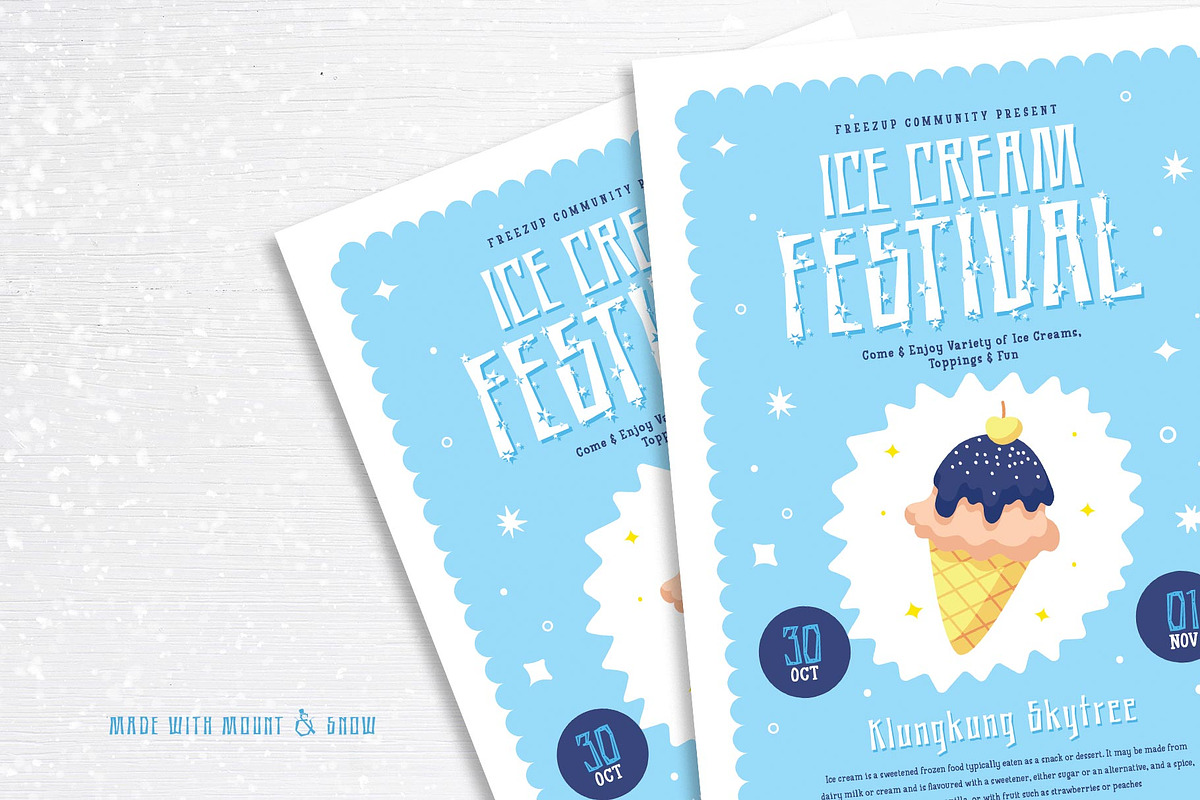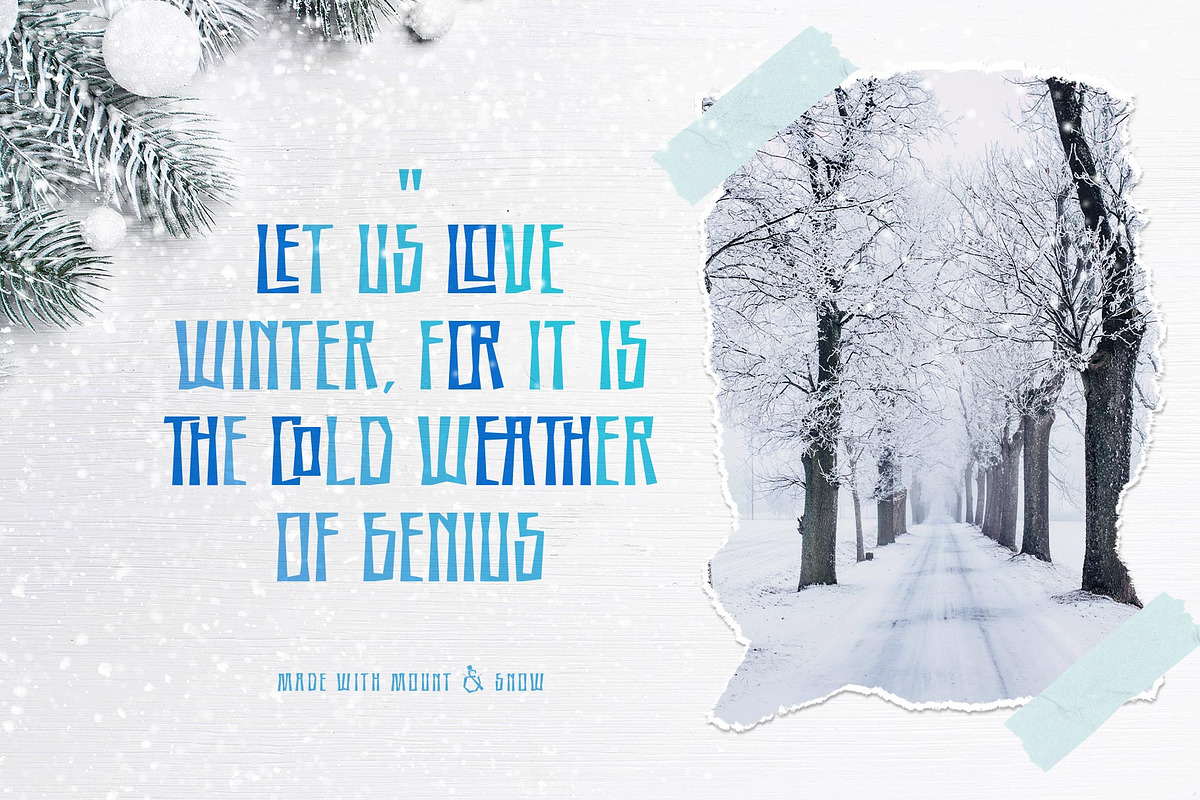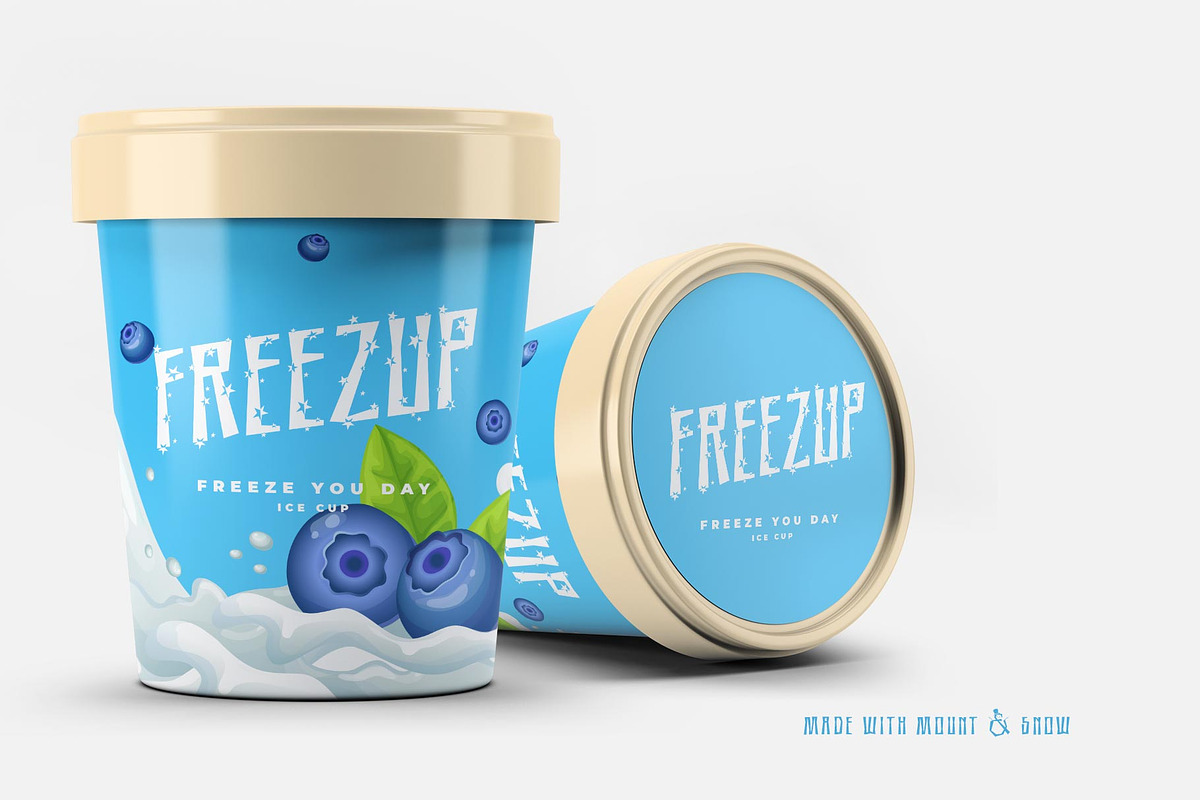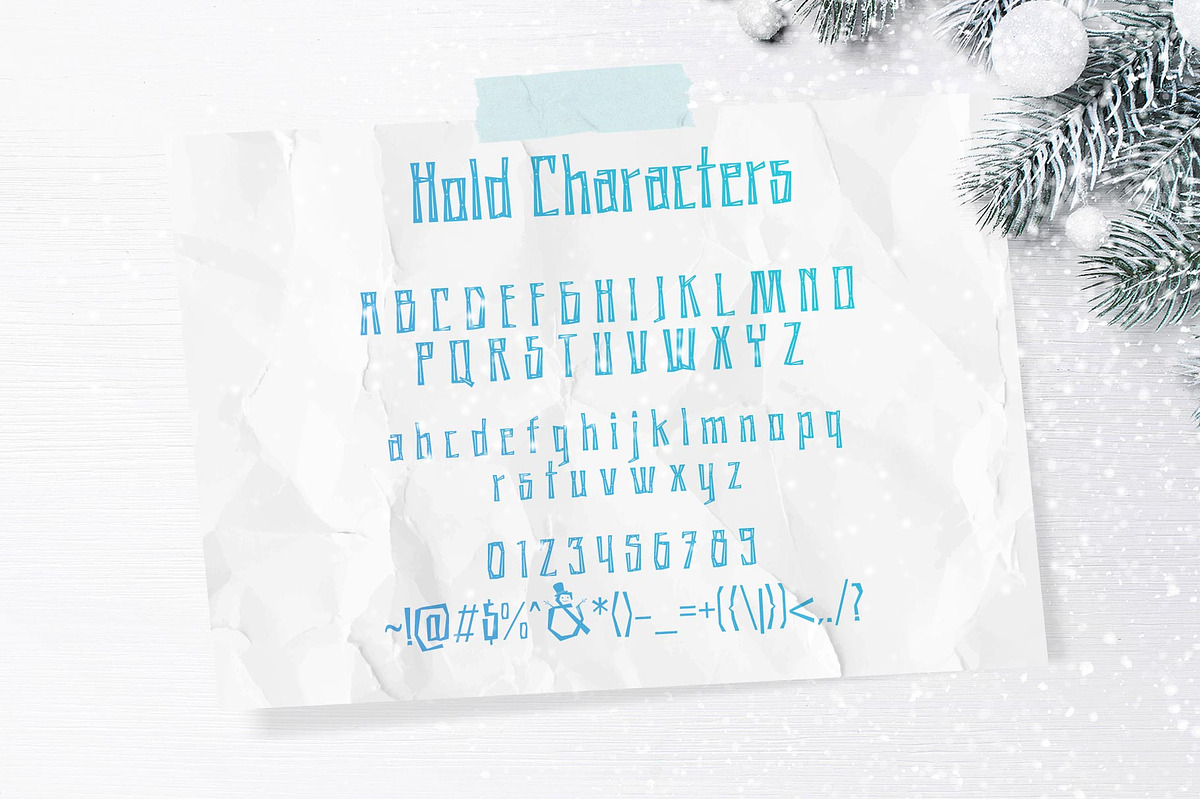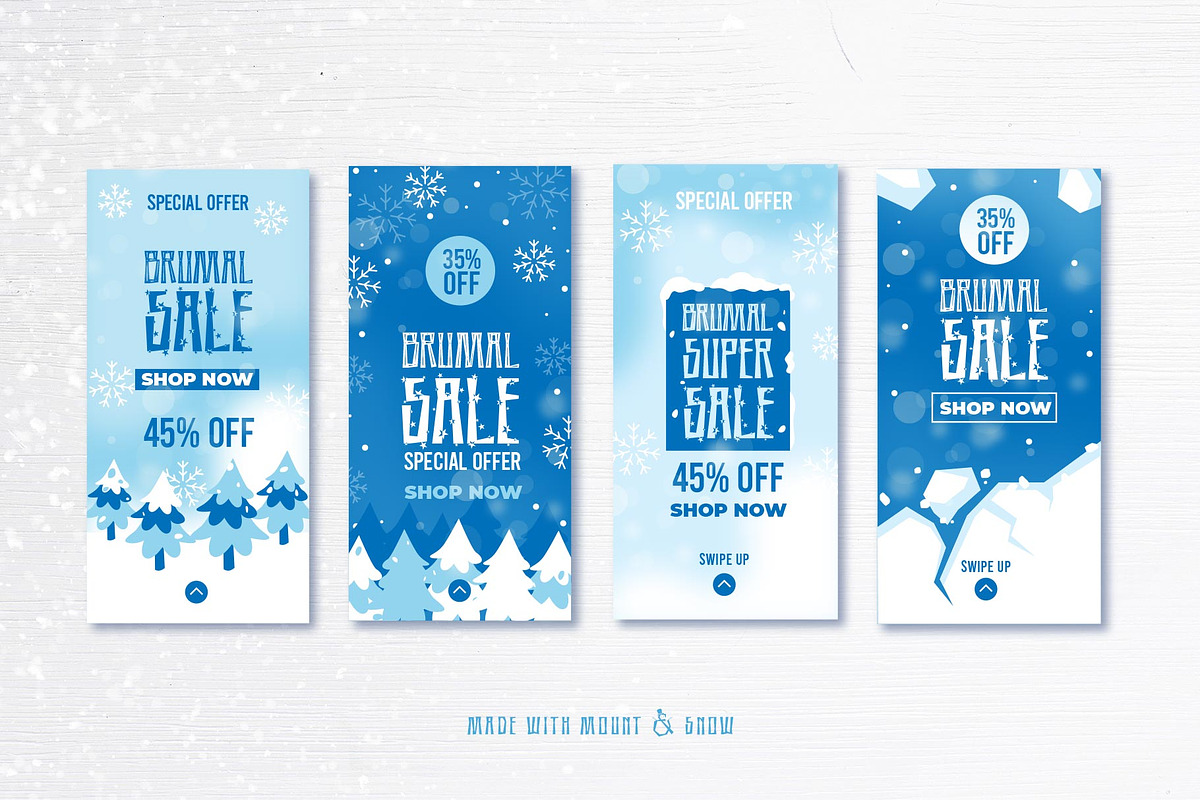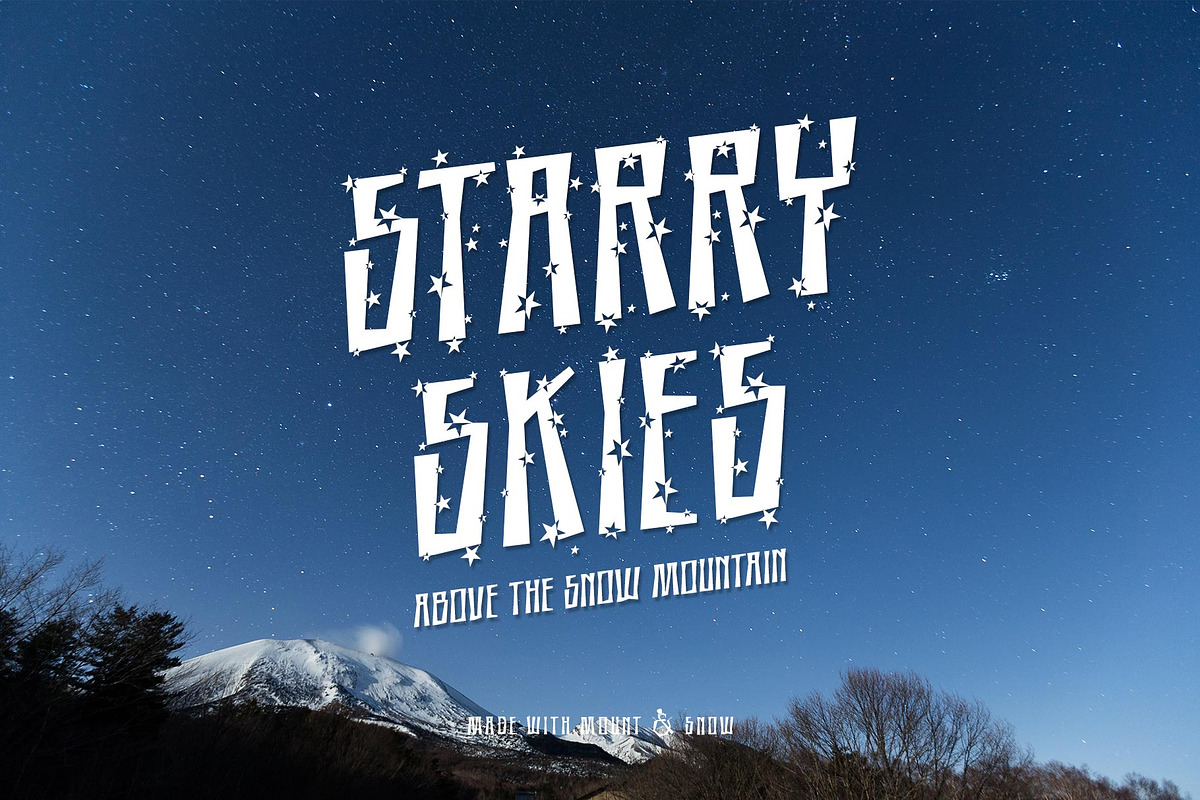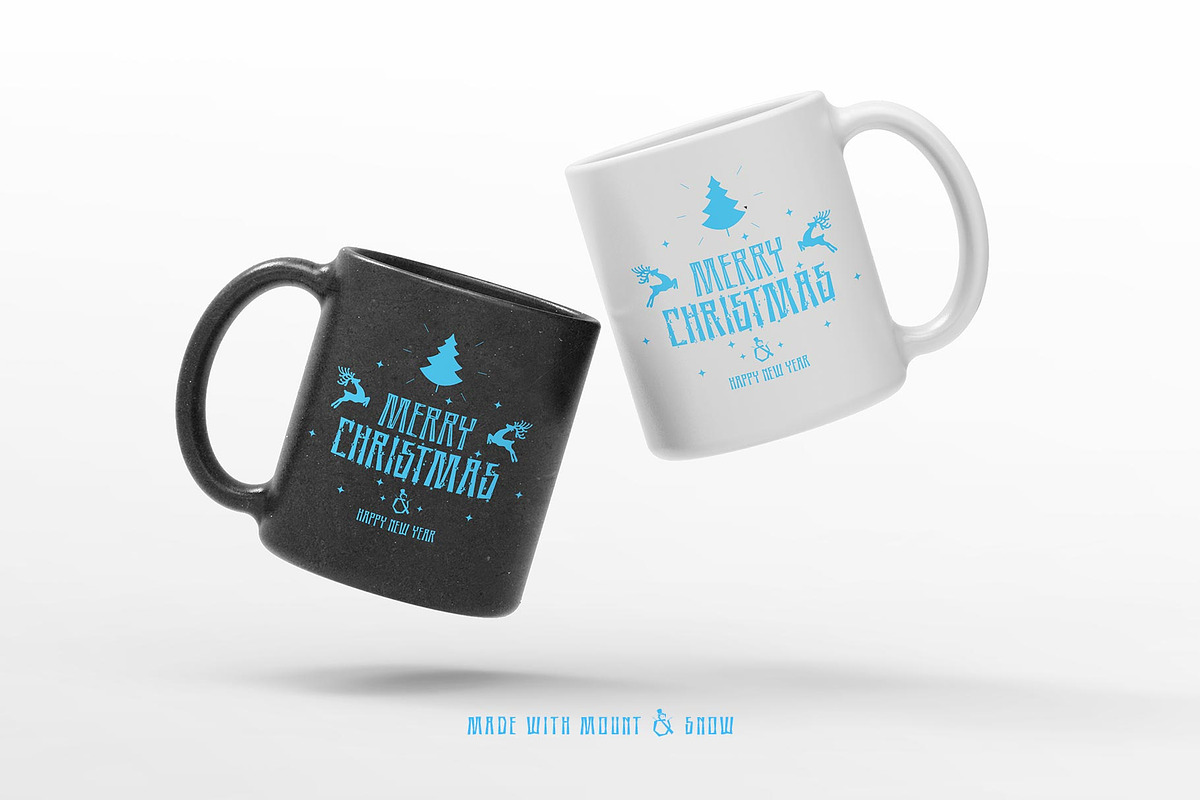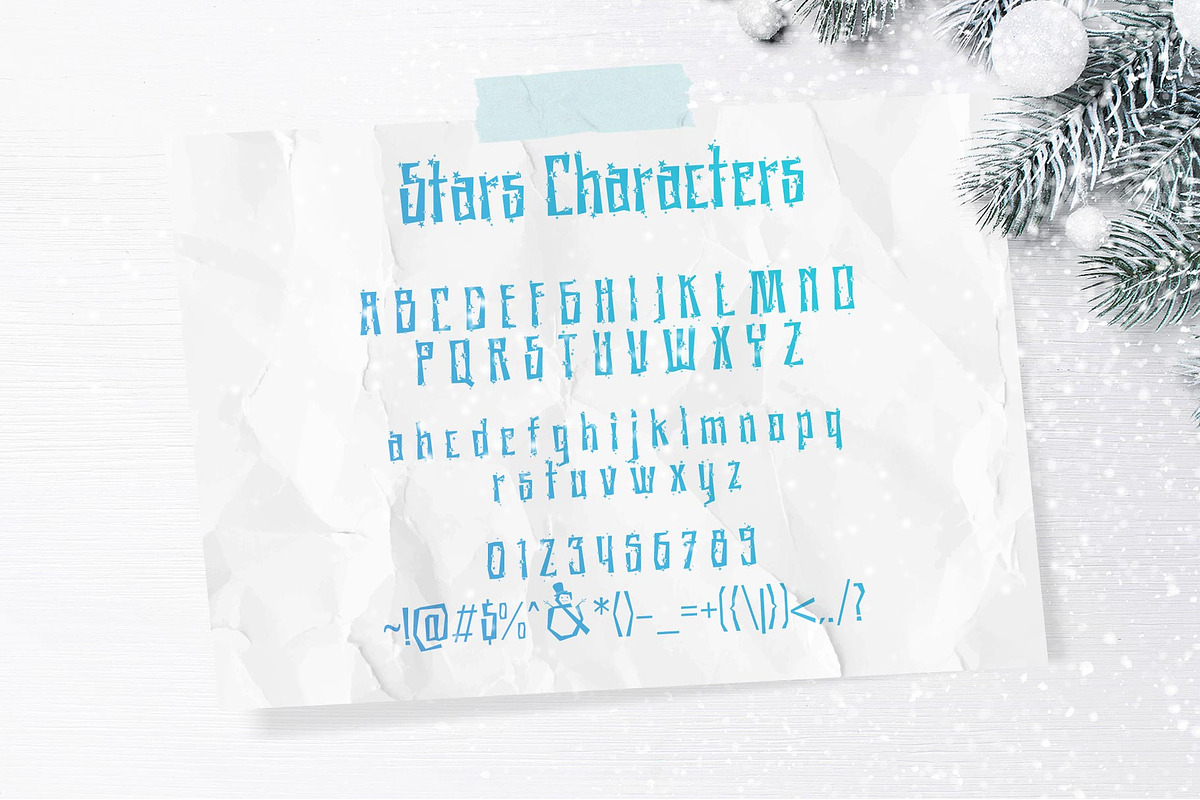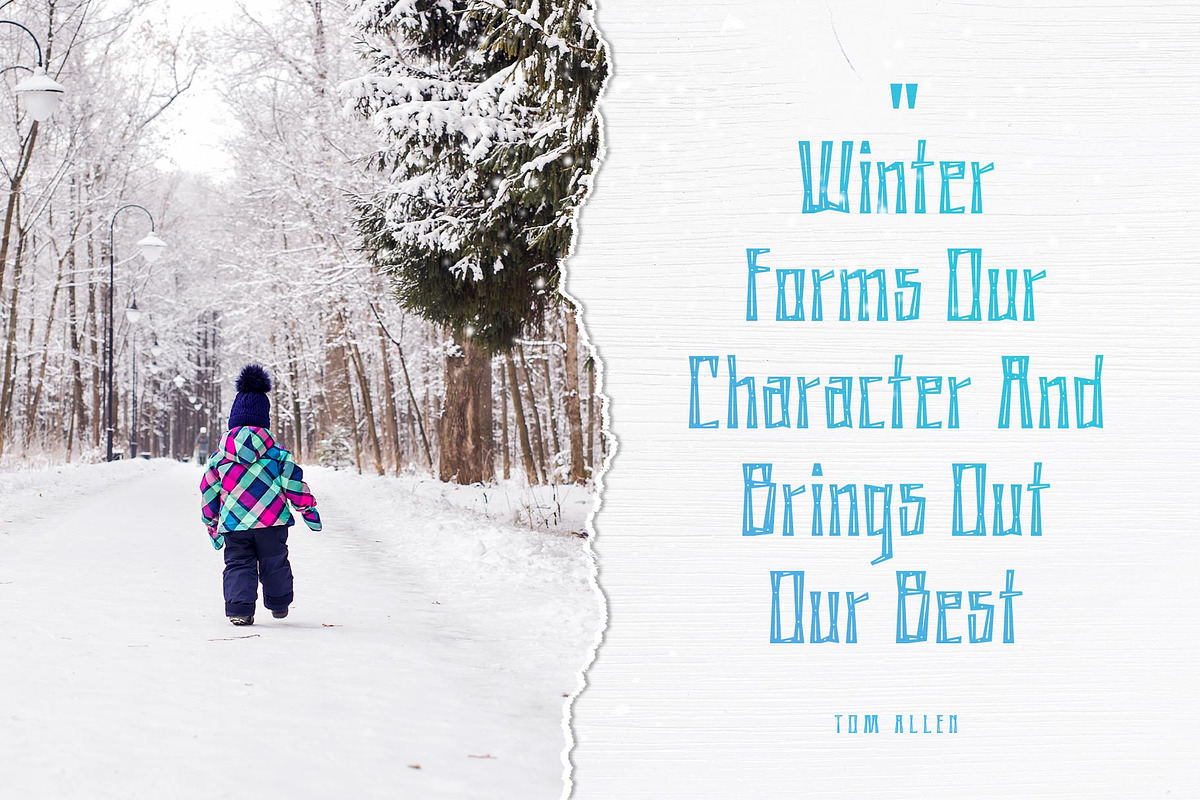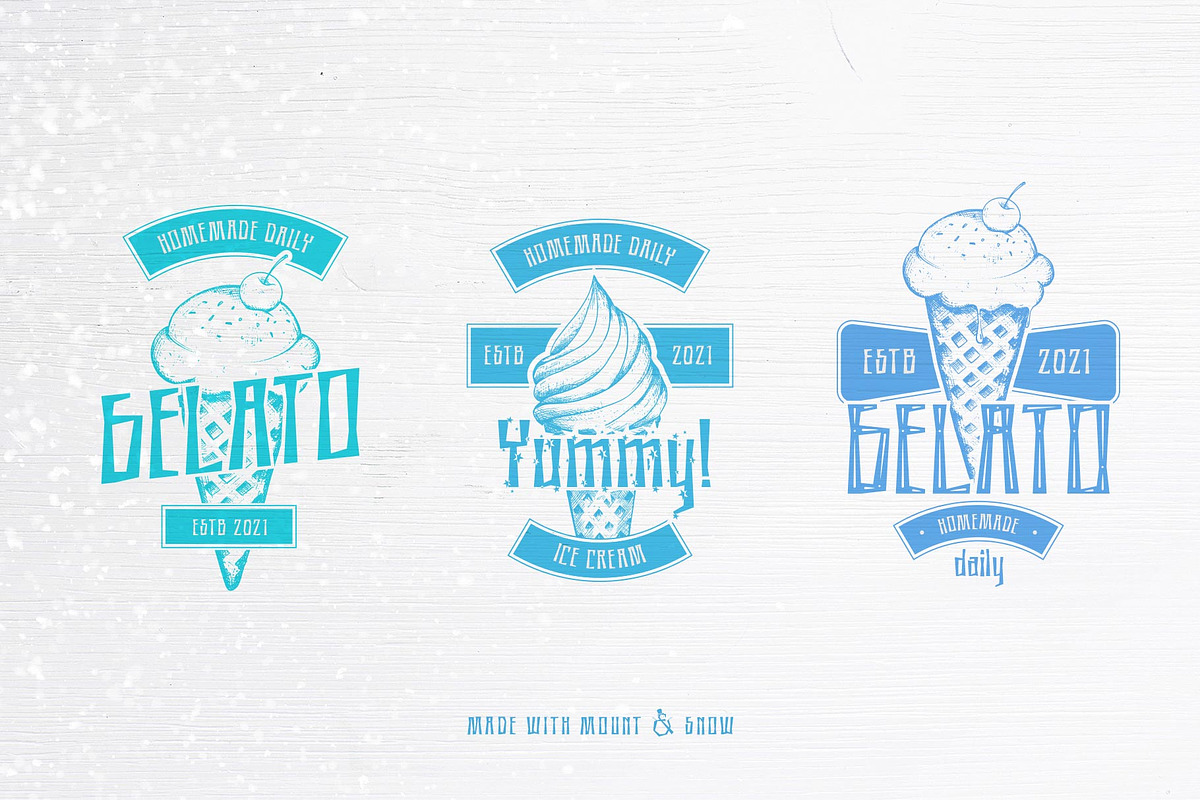
Mount and Snow Typeface
❄️Introducing Mount and Snow Typeface❄️
☃️ Mount and Snow Typeface was created from the concept of the end of the year which has many events such as Christmas, New Year and winter. Inspired by decorations and ornaments for Christmas. Alternative font character that makes the impression in December even stronger.
Can be used for the design of poster, Big sale sign, greeting card , packaging designs, New Year design and so on with the winter season concept.